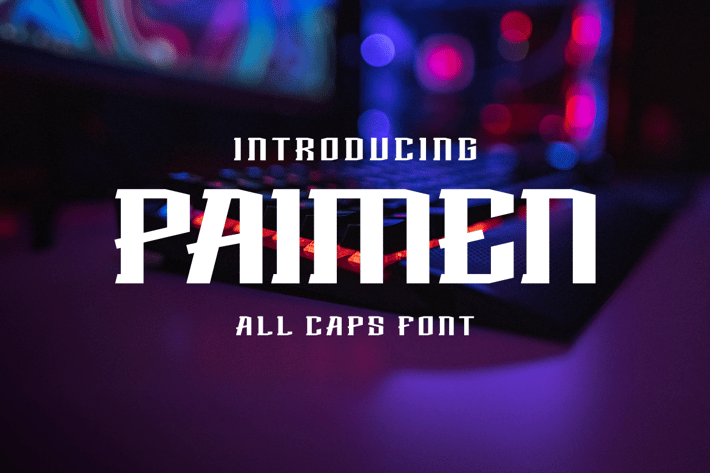
Paimen Font
Introducing our new product Paimen Font
Paimen Font is a bold and authentic display font. The font is suitable for any branding project like logo, t-shirt printing, esport, and many more. outstanding in a wide range of contexts.